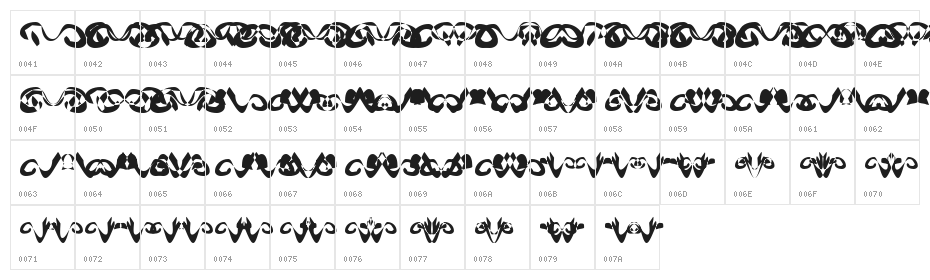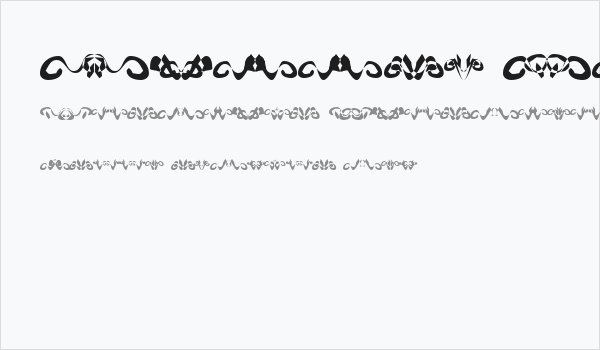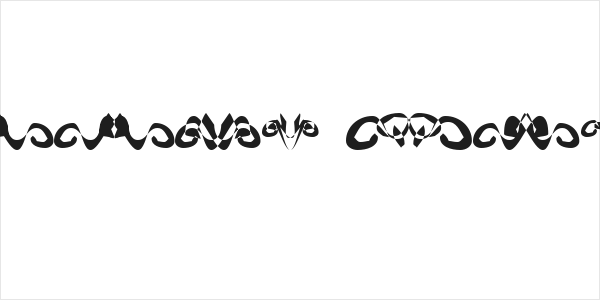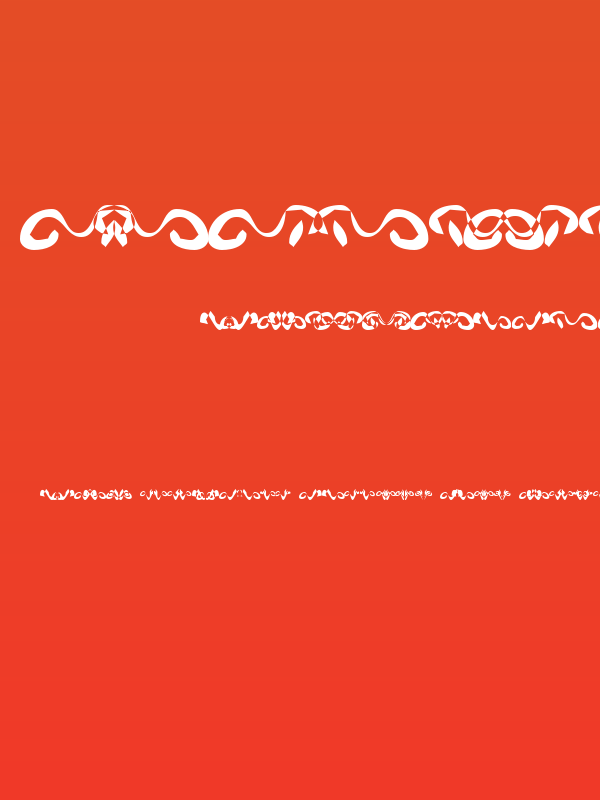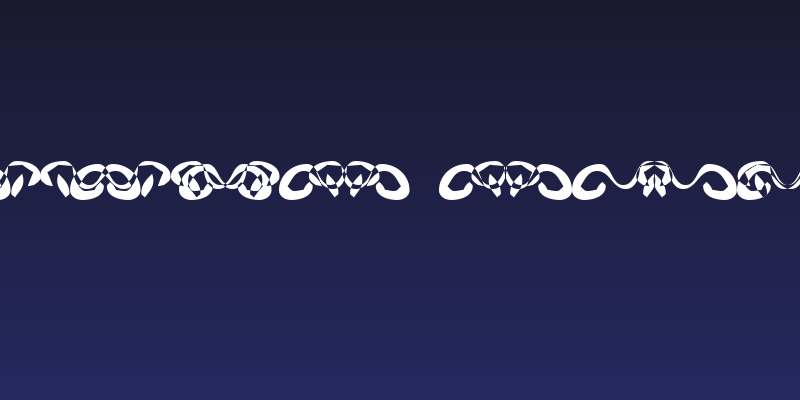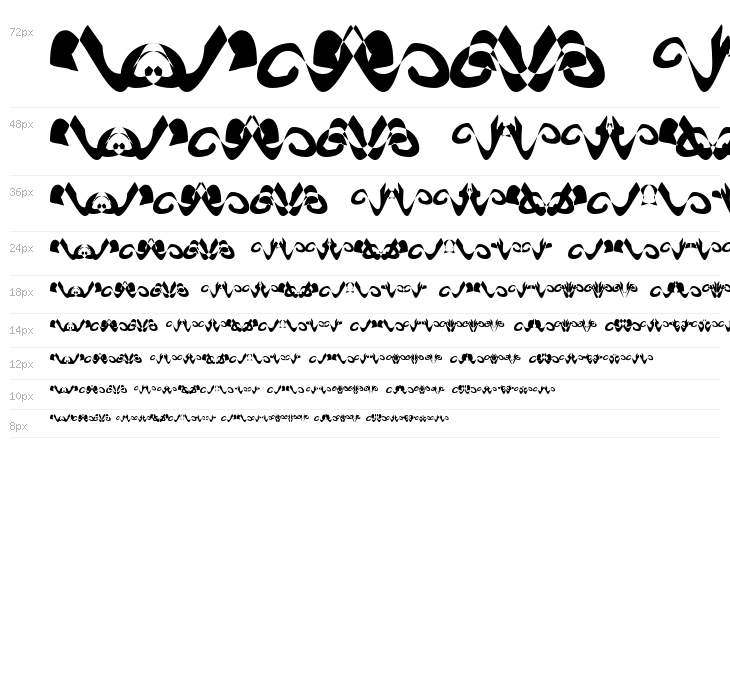
Hidden Ghosts Font
Hidden Ghosts Description
This design features an intricate and decorative style, characterized by ornate and swirling elements that create a mysterious and ghostly appearance. The characters are not traditional letters or numbers, but rather abstract shapes and motifs that evoke a sense of the supernatural. The design is highly decorative, with each element seamlessly flowing into the next, creating a continuous and mesmerizing pattern. The overall aesthetic is both elegant and eerie, making it suitable for themes related to mystery, fantasy, or the supernatural.